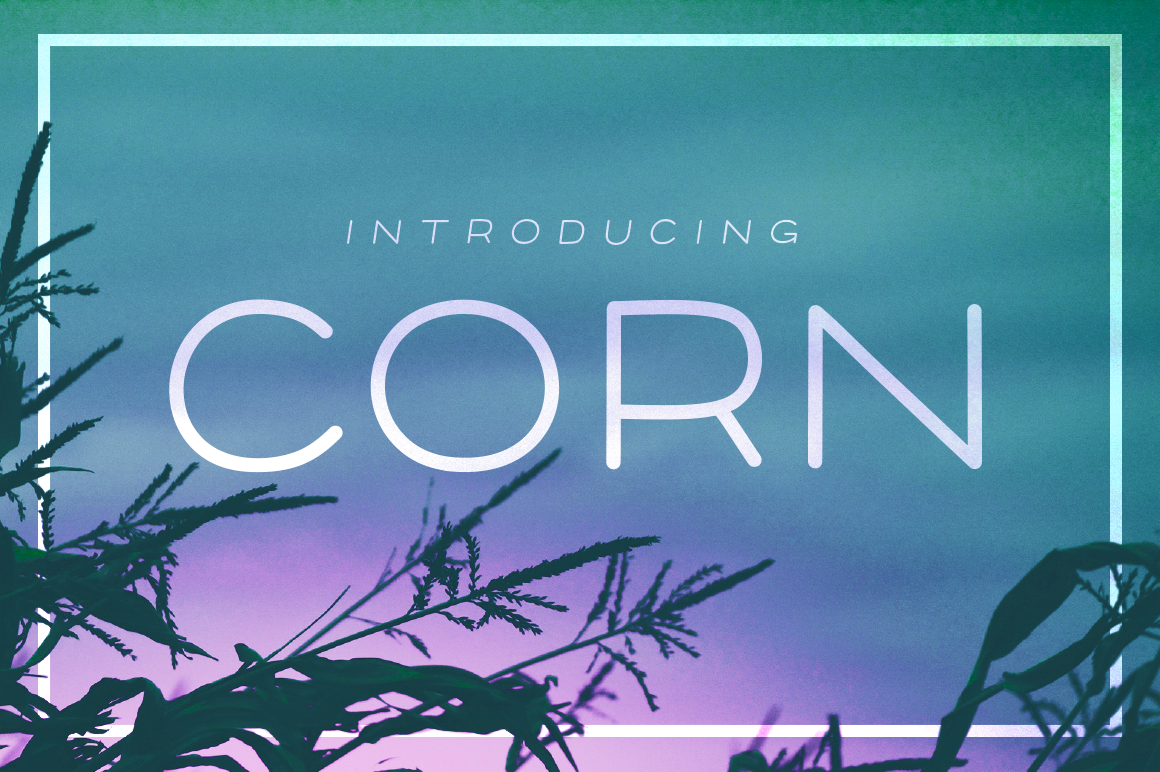
Introducing CORN! A very clean and wide font for headlines and logos. It's fancy, it's premium and it's for everyone who likes popcorn. It's a MAZE ing.
Its rounded corners give the font a smooth appearance. It also features numbers, symbols and language support